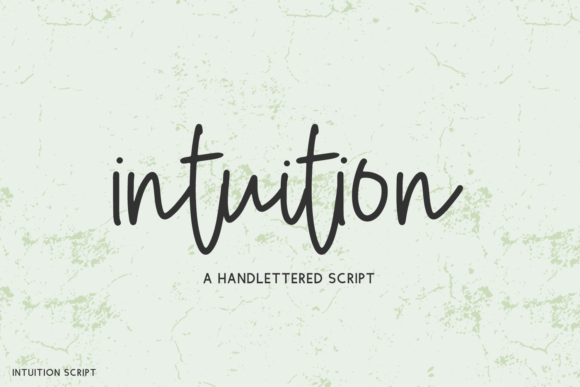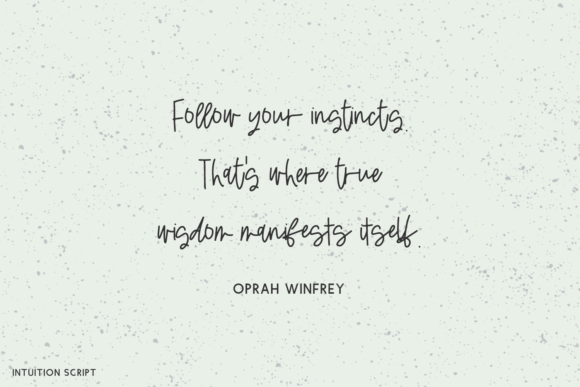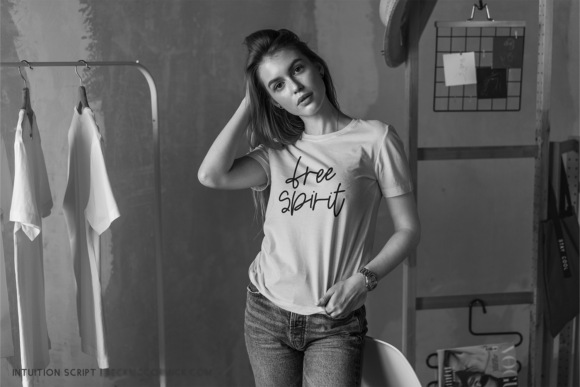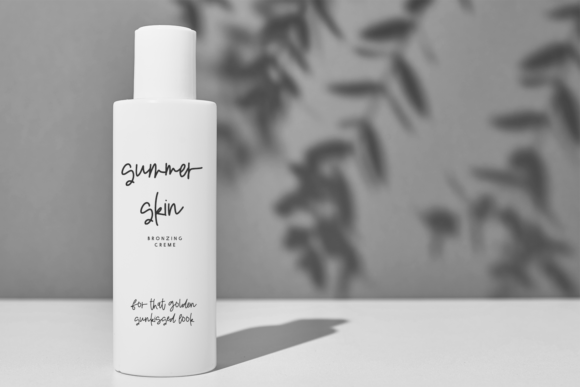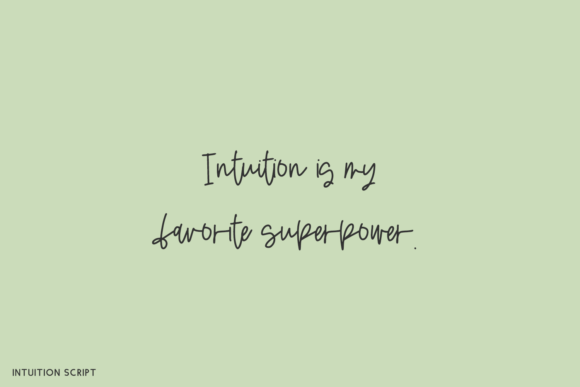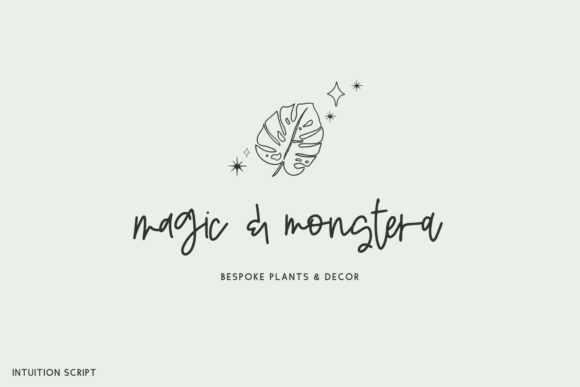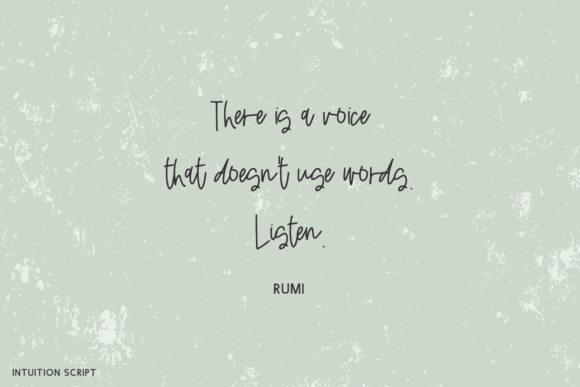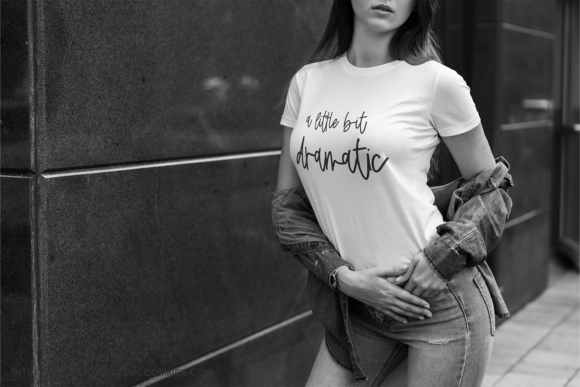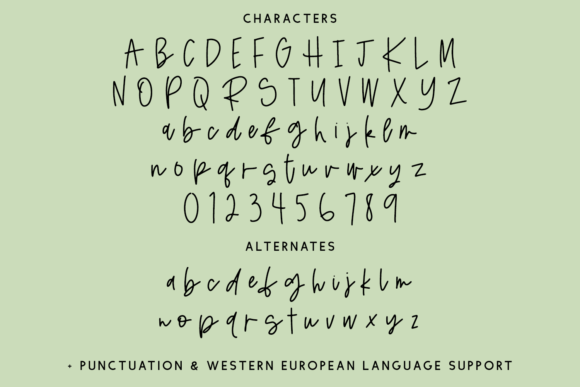
Intuition Font
About Intuition Font
**Intuition** is a monoline hand-lettered script font that effortlessly captures the essence of quick, messy handwriting. With its varied baseline and organic, flowing letters, this font adds a touch of authenticity and realism to your designs. Its natural and spontaneous feel makes it perfect for projects that require a handwritten touch, creating an atmosphere of genuine connection and warmth.
One of the standout features of **Intuition** is its second set of lowercase letters. This additional set provides you with the flexibility to customize your text even further, allowing you to create a more realistic and personalized handwritten appearance. This unique characteristic makes **Intuition** highly versatile, suitable for a wide range of applications, including greeting cards, invitations, social media posts, branding materials, and more.
The font’s monoline style adds a sense of simplicity and elegance, while its effortless, messy letters bring a hint of spontaneity and charm. **Intuition** is designed to convey a sense of genuine handwriting, making it ideal for projects that require a personal and heartfelt touch. Whether you’re designing heartfelt notes, heartfelt messages, or casual yet stylish branding, **Intuition** provides the perfect balance between authenticity and elegance.
By incorporating **Intuition** into your designs, you infuse them with a sense of genuine, human connection. Its natural, hand-lettered appearance adds an element of warmth and sincerity, making your creations feel more personal and relatable. Whether used for print or digital media, **Intuition** enhances your designs, ensuring they resonate with a heartfelt and authentic spirit that captures the essence of genuine handwriting.